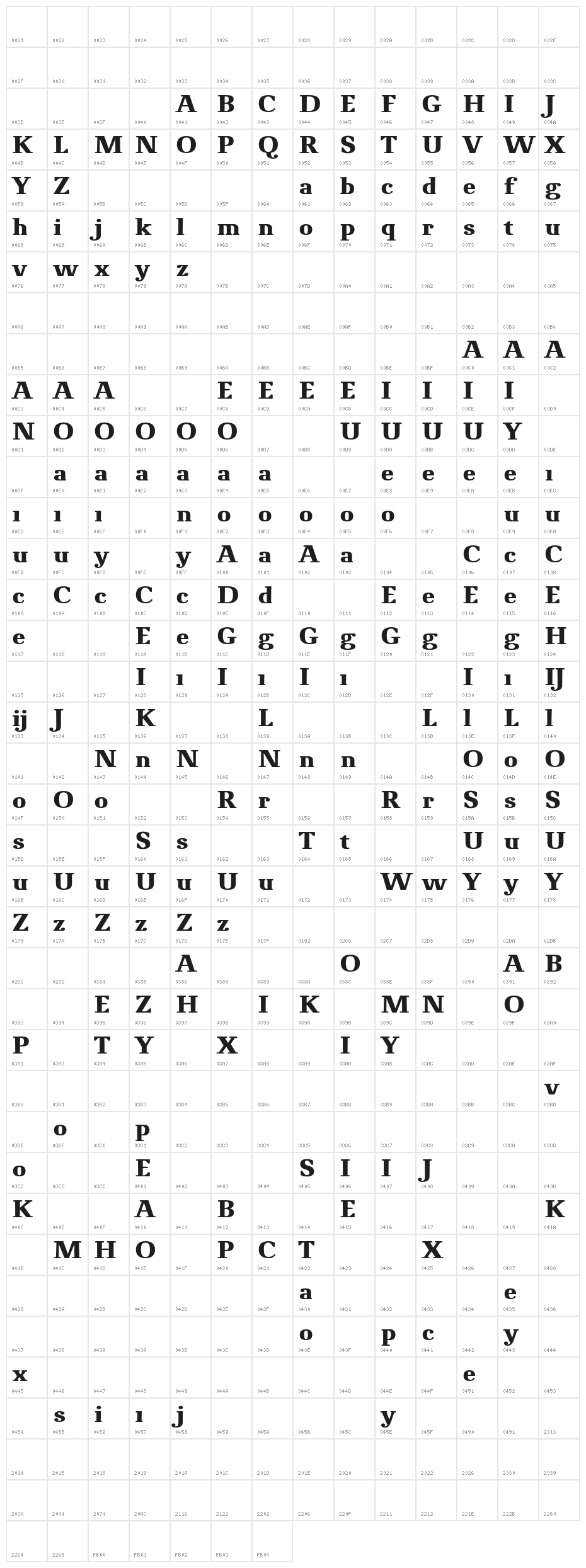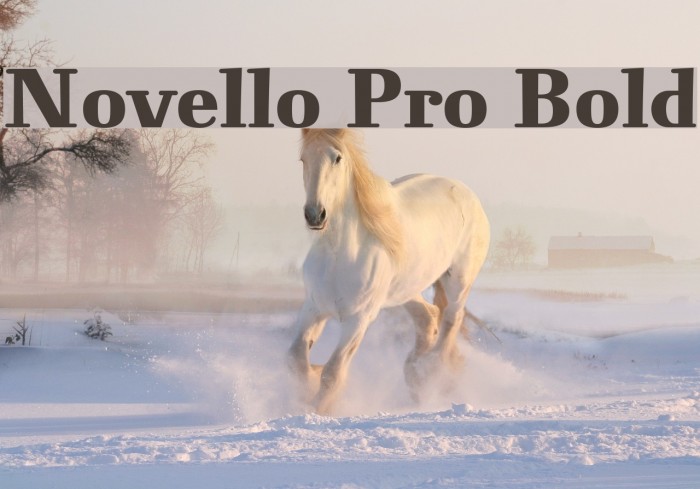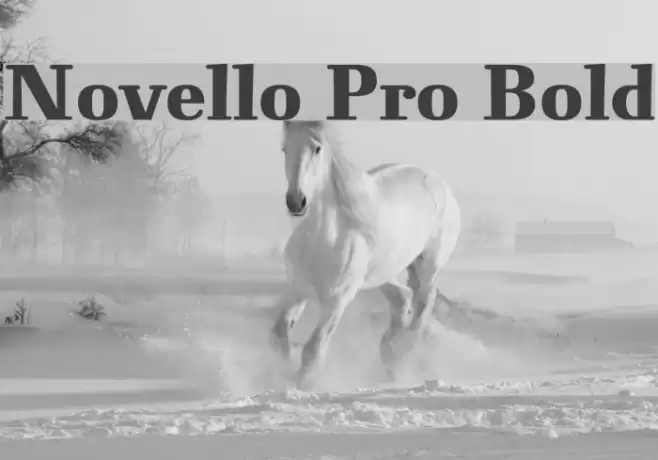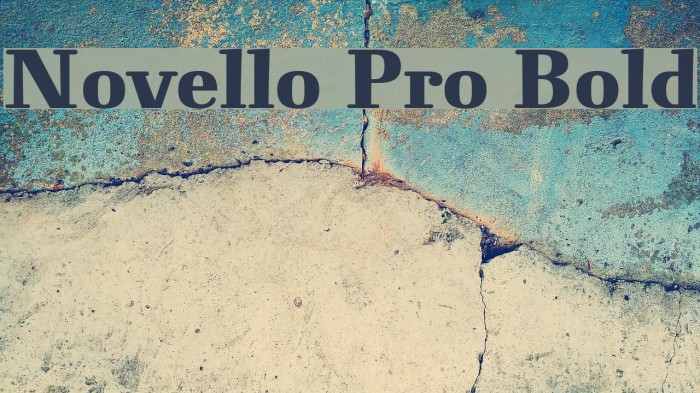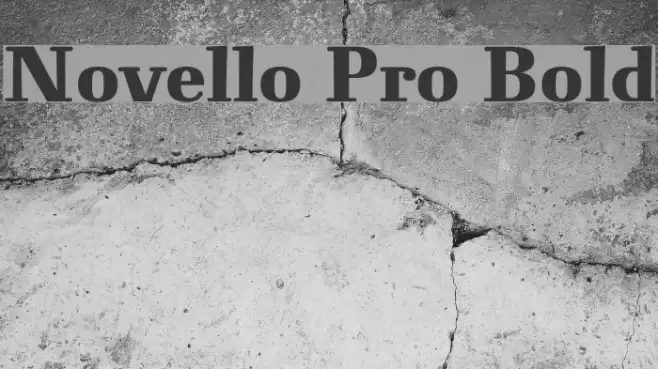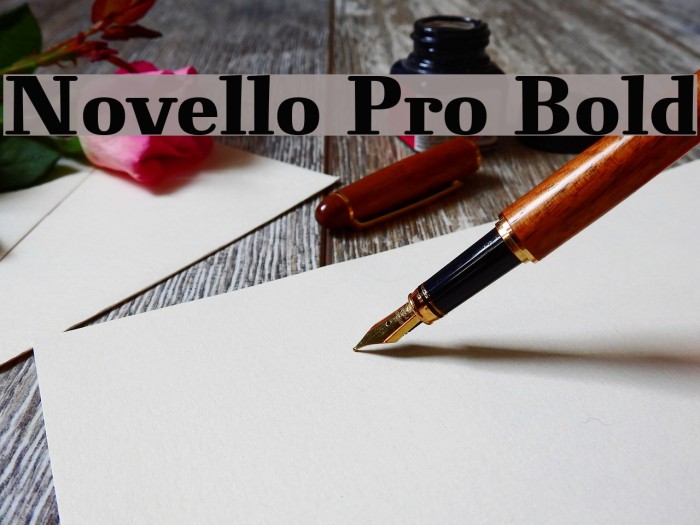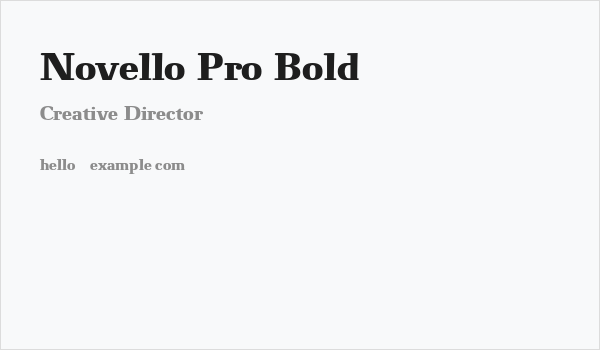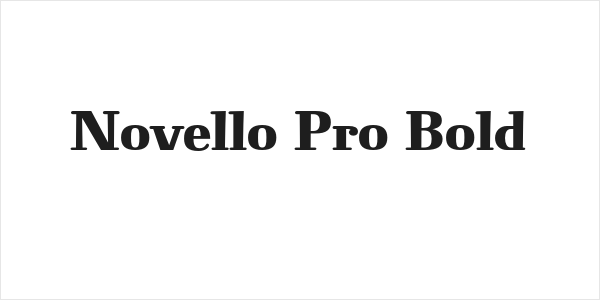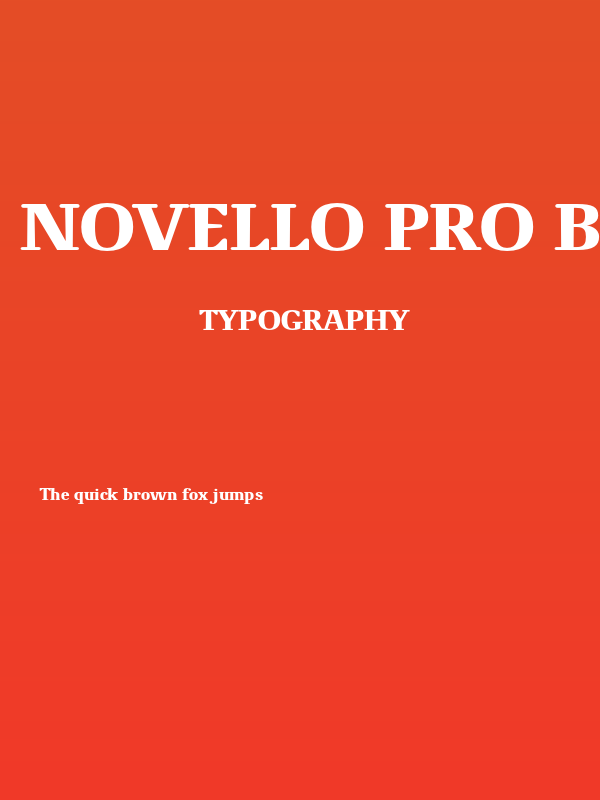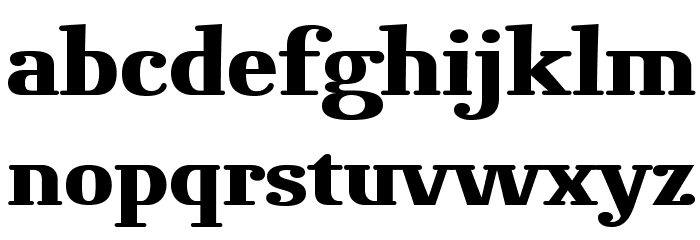
Novello Pro Bold Font
Novello Pro Bold Description
This font exhibits a strong and authoritative presence with its bold and robust serif design. The characters are well-defined with thick strokes and prominent serifs, providing a classic yet modern appeal. The uppercase letters are tall and commanding, while the lowercase letters maintain a consistent and harmonious flow. The numerals are clear and easily distinguishable, making them suitable for various applications. Special characters are crafted with the same attention to detail, ensuring a cohesive look across all glyphs. This font's boldness and clarity make it ideal for impactful headlines and branding.
Overall StyleClassic
Proposed ProjectsIdeal for branding, editorial headlines, book covers, and advertising campaigns.